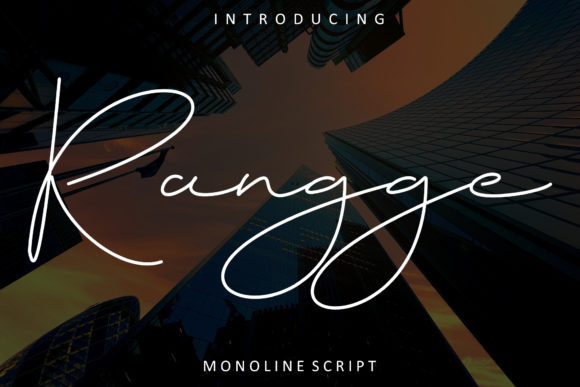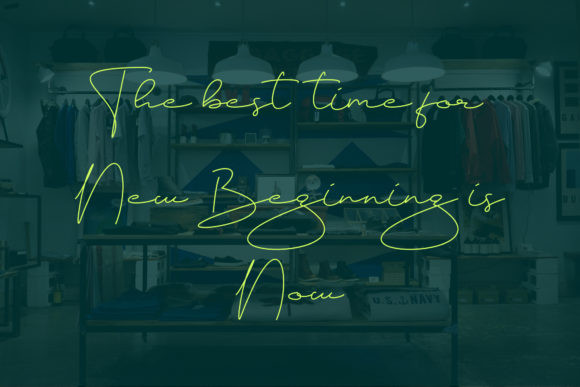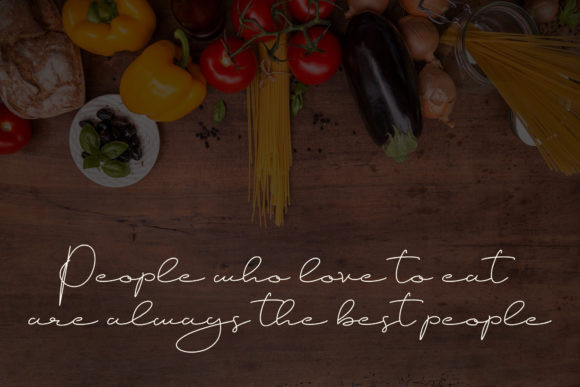
Rangge Font
Rangge is a thin and elegant handwritten font. It is the best choice for creating eye catching logos, branding and quotes. Every letter has a unique and beautiful touch, which will make your design come alive!